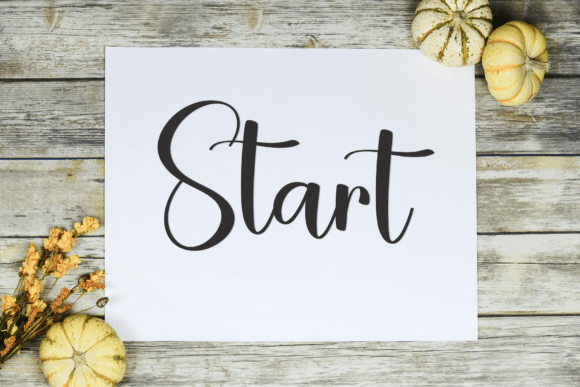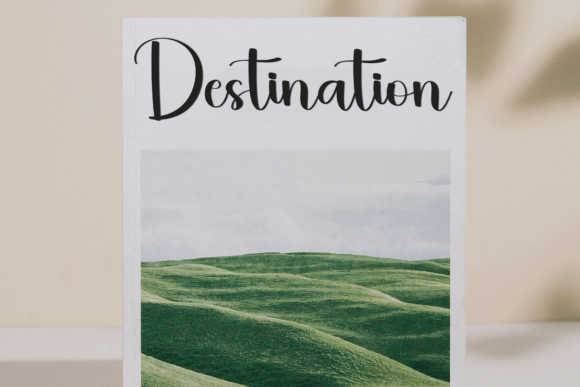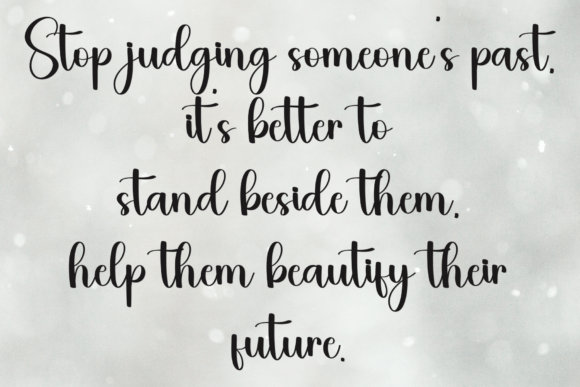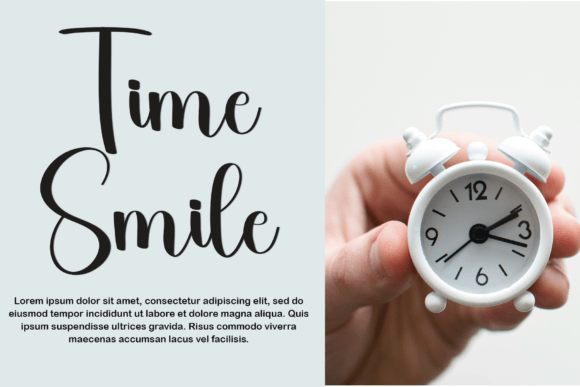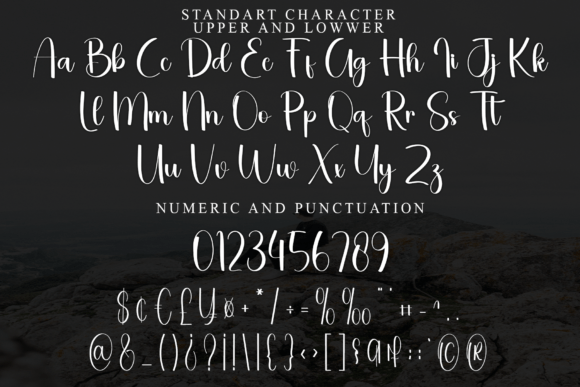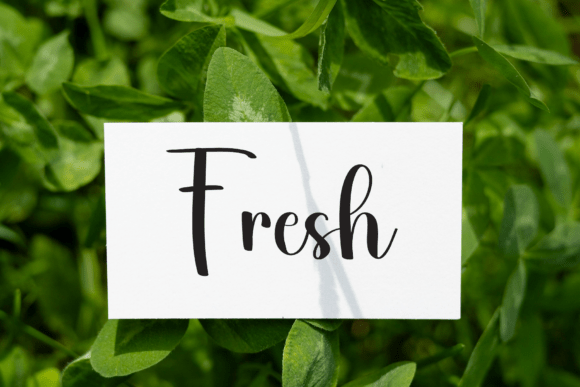
Introducing Happy Mother Font: The Perfect Choice for Your Creative Projects
Are you a designer, crafter, or DIY enthusiast looking for a font that can add a touch of warmth and personality to your creative projects? Look no further than Happy Mother Font, a lovely and timeless handwritten font that’s perfect for creating eye-catching logos, branding, and quotes.
What Makes Happy Mother Font So Special?
Happy Mother Font is a unique and beautiful handwritten font that’s designed to bring a smile to your face. Every letter has a distinctive and charming touch that will make your design come alive! The font’s playful and whimsical feel makes it perfect for a wide range of creative projects, from logos and branding to quotes and social media graphics.
Key Features of Happy Mother Font
- Unique and Beautiful Touch: Each letter in Happy Mother Font has a unique and beautiful touch that sets it apart from other fonts.
- Handwritten Style: The font’s handwritten style gives it a warm and personal feel that’s perfect for creating designs that resonate with your audience.
- Timeless Appeal: Happy Mother Font has a timeless appeal that ensures your designs will remain stylish and relevant for years to come.
- Eyecatching: The font’s playful and whimsical feel makes it perfect for creating eye-catching logos, branding, and quotes that grab attention.
Why Choose Happy Mother Font?
So, why should you choose Happy Mother Font for your creative projects? Here are just a few reasons:
- Perfect for Logos and Branding: Happy Mother Font is ideal for creating unique and memorable logos and branding that reflect your personality and style.
- Adds a Personal Touch: The font’s handwritten style adds a personal touch to your designs, making them more relatable and engaging.
- Versatile: Happy Mother Font is versatile and can be used for a wide range of creative projects, from digital graphics to print materials.
- Easily Readable: Despite its playful feel, Happy Mother Font is easily readable, making it perfect for creating quotes, social media graphics, and other designs where text is a key element.
Tips for Using Happy Mother Font
Here are a few tips for getting the most out of Happy Mother Font:
- Use it for Headlines and Titles: Happy Mother Font is perfect for creating eye-catching headlines and titles that grab attention.
- Experiment with Colors and Textures: The font’s playful feel makes it perfect for experimenting with different colors and textures to add depth and interest to your designs.
- Pair it with Other Fonts: Happy Mother Font can be paired with other fonts to create a unique and stylish contrast that adds visual interest to your designs.
In conclusion, Happy Mother Font is a lovely and timeless handwritten font that’s perfect for designers, crafters, and DIY enthusiasts looking to add a touch of warmth and personality to their creative projects. With its unique and beautiful touch, handwritten style, and timeless appeal, Happy Mother Font is the perfect choice for creating eye-catching logos, branding, and quotes that resonate with your audience.